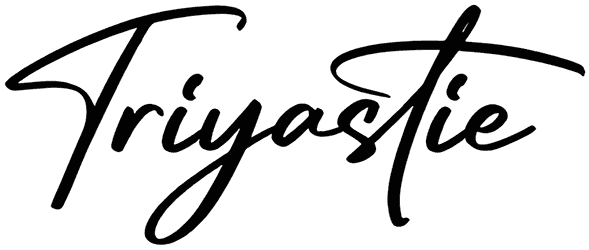
Triyastie Font
Who says that digital designs are far from human spaces? Triyastie will help you create a personal and organic atmosphere and can bring you fun projects.
You can use this handwritten font anywhere, such as wedding cards, invitations, greetings, and anywhere that requires direct communication with the audience, and be surprised by the results. Although reading the content with its font script is difficult, it can still become your strong point in any subject.